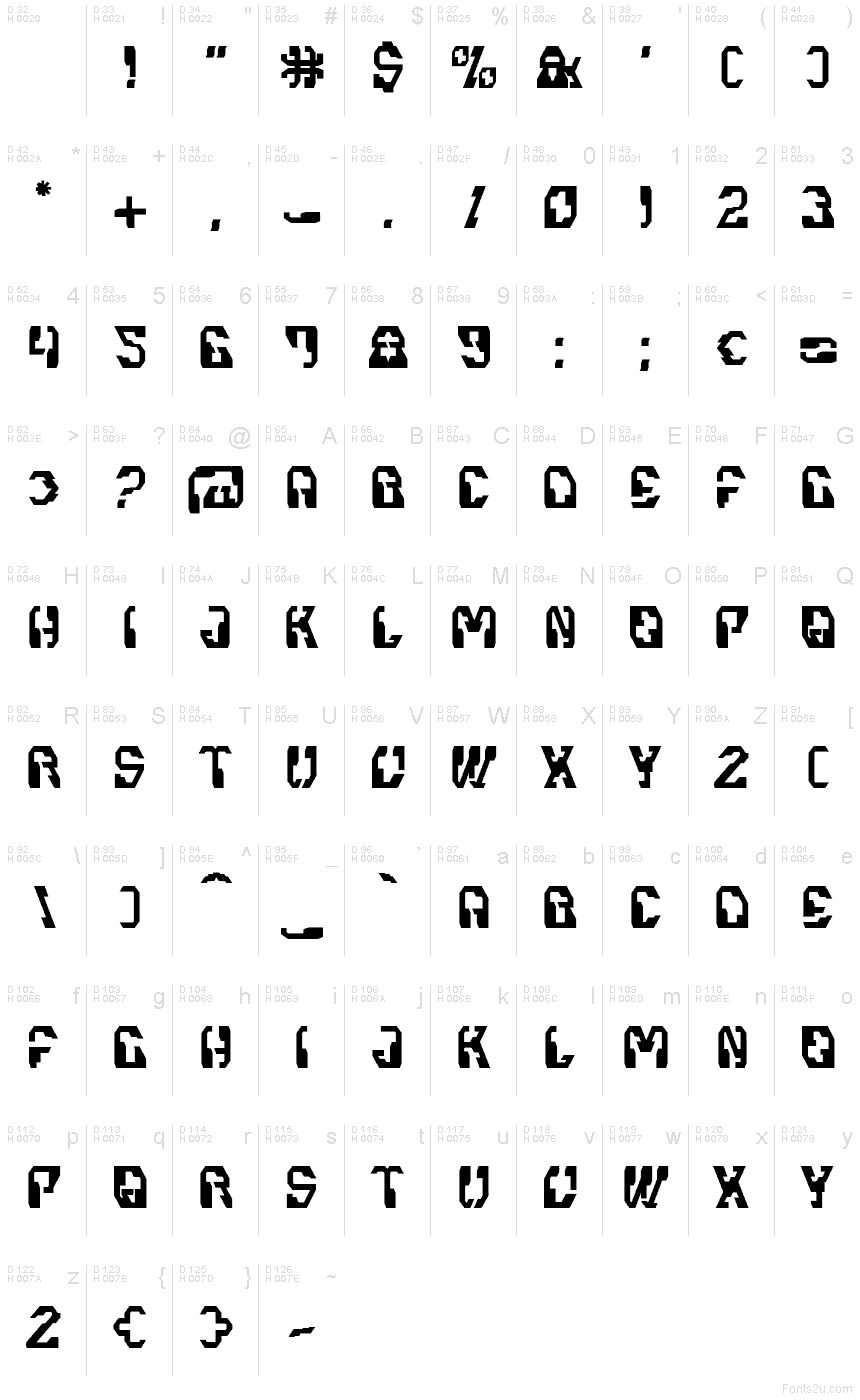
Wantech
Wantech font by Dhabee Studio is a free futuristic display typeface with a bold, almost mechanical energy. Its chunky, faceted letterforms lock together like panels of a sci‑fi exosuit, while the tight rhythm and angular cuts create a sense of motion even in a single word. The result feels gritty and high-tech at the same time—like industrial signage from a neon‑lit future.
Using Wantech, your titles instantly snap into a high-impact, cyber-themed mood that’s great for gaming logos, esports jerseys, sci‑fi posters, tech event branding, streaming overlays, and bold packaging. This free font thrives at large sizes where its geometric edges and carved-out shapes can really show. Pair Wantech with a simple, light-weight sans serif for body text to keep your layouts sharp and readable.